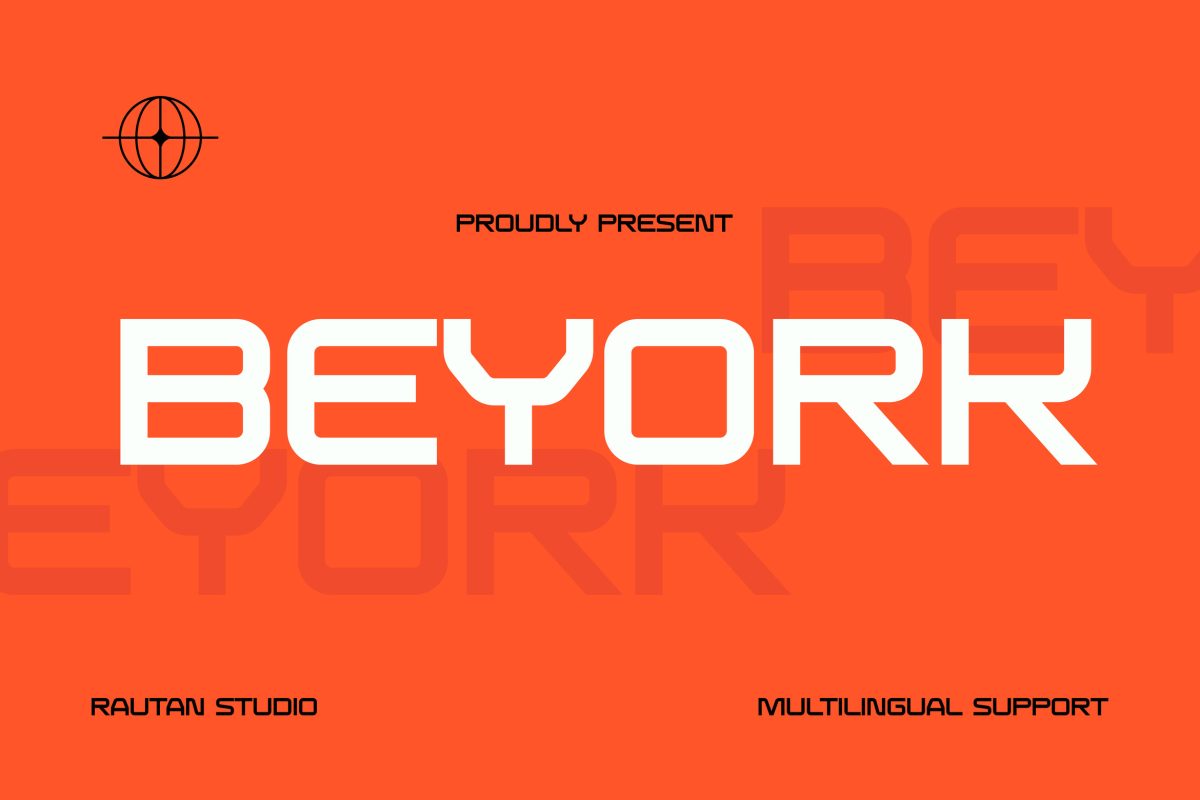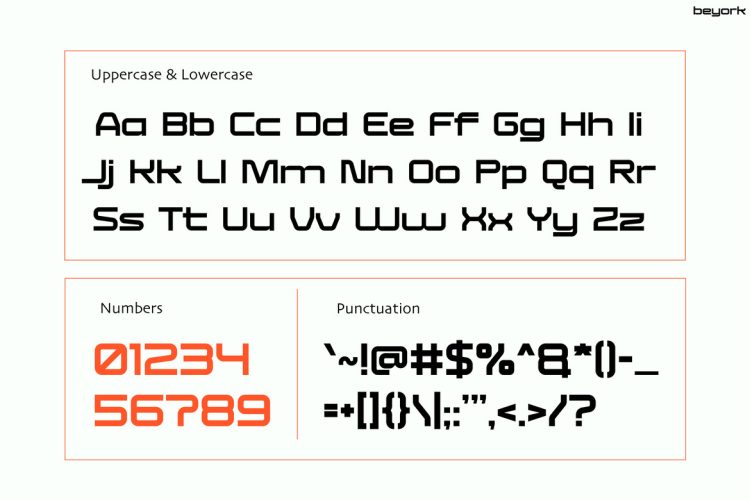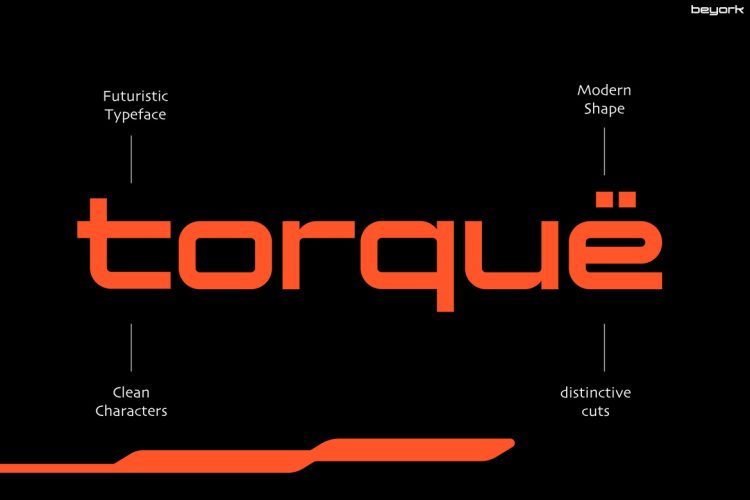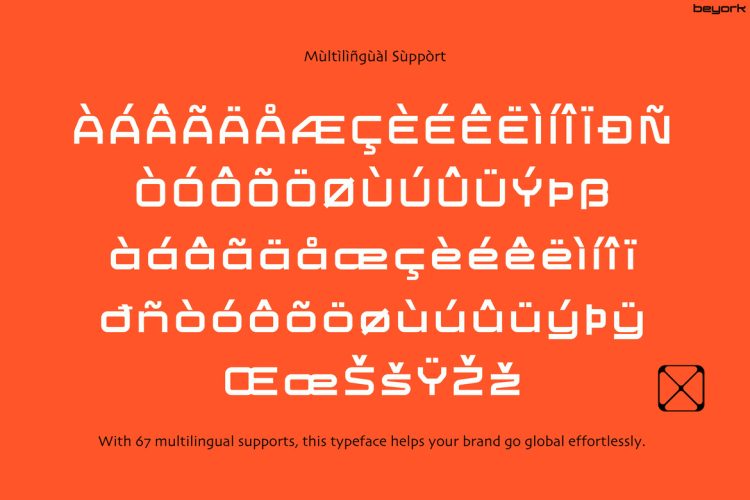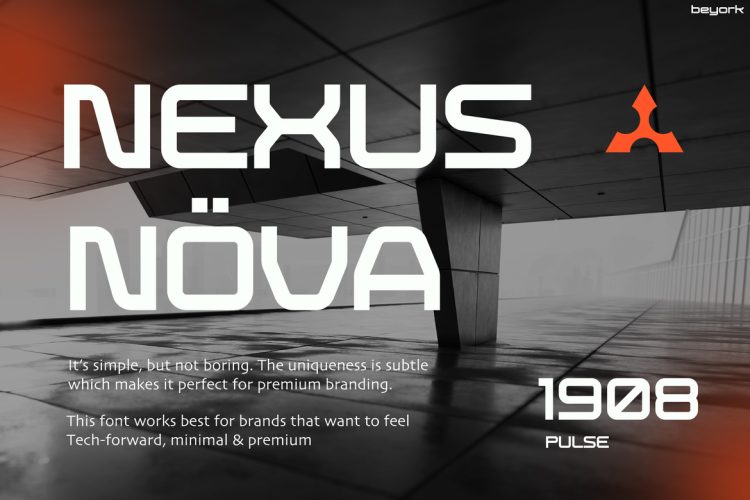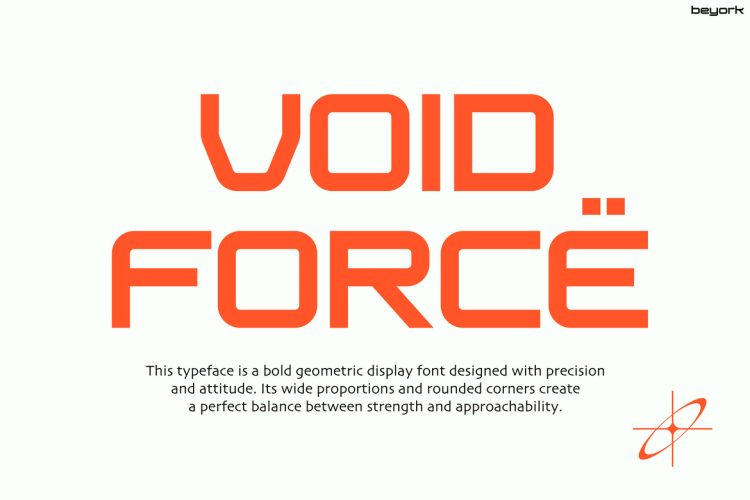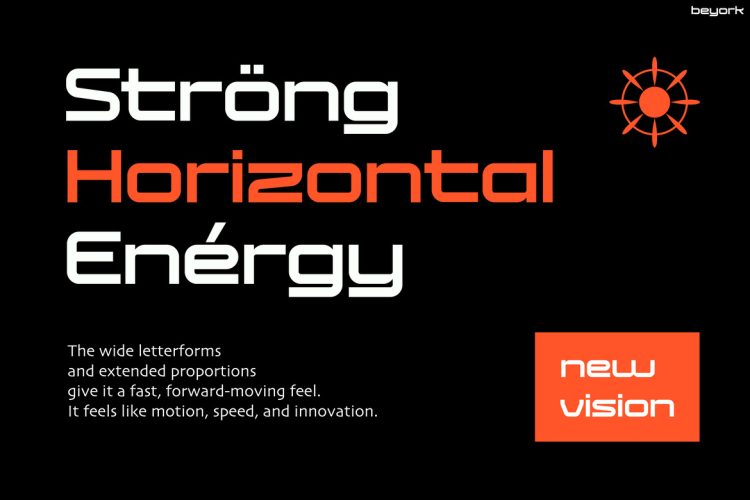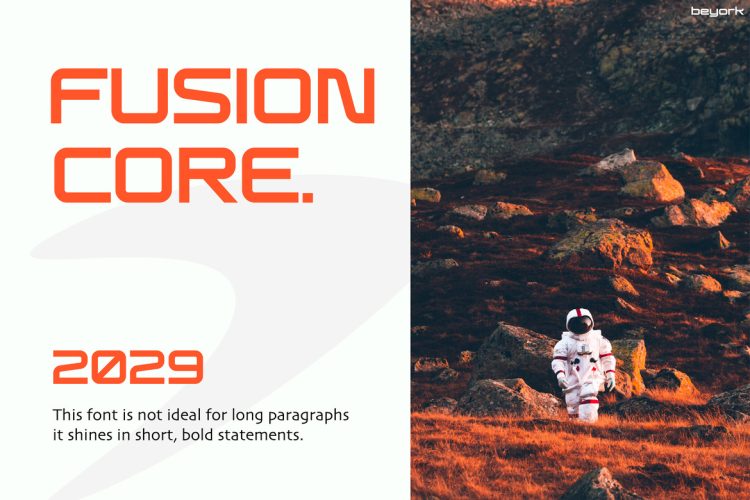
Modern Font BEYORK
BEYORK
BEYORK โ€“ Futuristic Modern Font with Tech Power
Modern Font BEYORK delivers a futuristic style with sharp geometry and clean lines. It creates a bold, sleek look that feels modern and forward-thinking. Moreover, its structure blends precision with minimalism, so every letter looks strong and clear. The design keeps high readability while adding a unique tech-driven aesthetic. Therefore, it works perfectly for headlines and branding. In addition, BEYORK brings a sense of innovation, confidence, and digital energy. With support for 67 languages, it helps you reach a global audience easily.
BEYORK is a modern display font built for strong visual impact. Its geometric shapes and sharp cuts create a clear and structured look. As a result, every word feels powerful and intentional. The font works well in both digital and print formats. Additionally, it keeps your design clean and professional. You can use it for headlines, branding, or editorial layouts. Its futuristic style also adds a modern and innovative touch to any project.
BEYORK fits designers, tech brands, and creative professionals. It works great for logos, posters, and UI/UX design. Furthermore, it suits gaming, automotive, and sci-fi projects. You can also use it for social media and advertising. Not only does it look bold, but it also builds a strong modern identity.
• Basic latin A-Z and a-z
• Multilingual Support (67 Languages)
Modern Font BEYORK is a sleek futuristic display font with sharp geometry and bold impactโ€”perfect for tech branding, gaming, and standout visuals. Supports 67 languages.